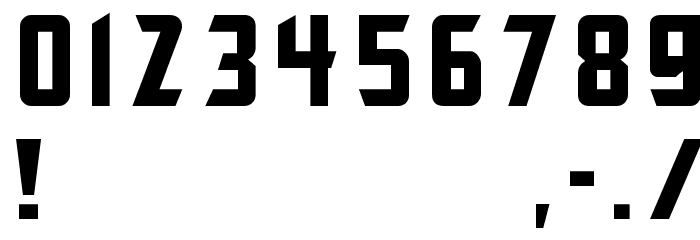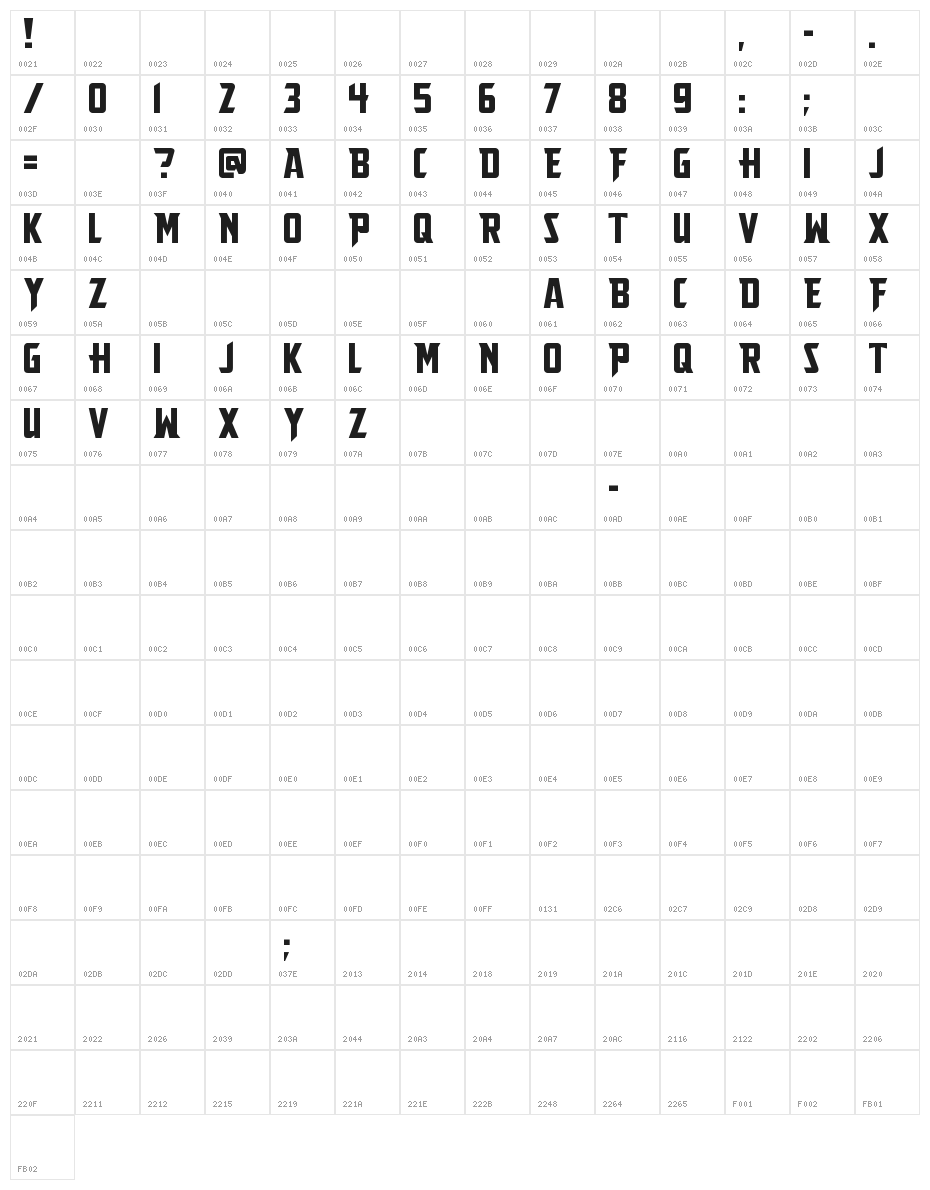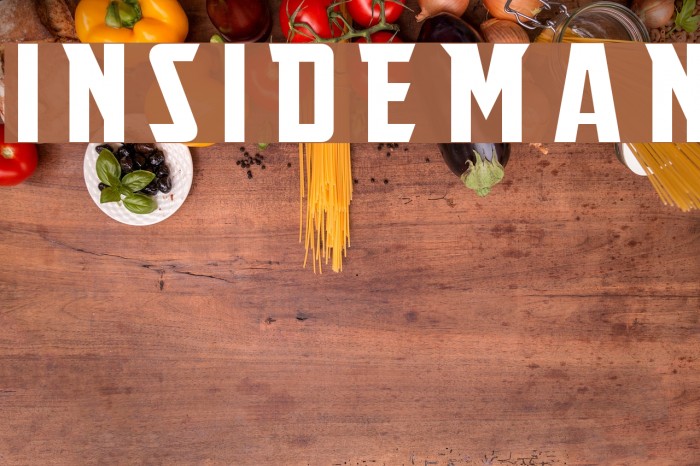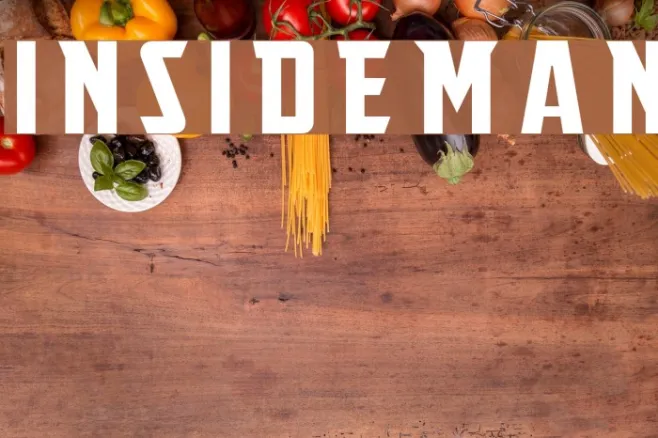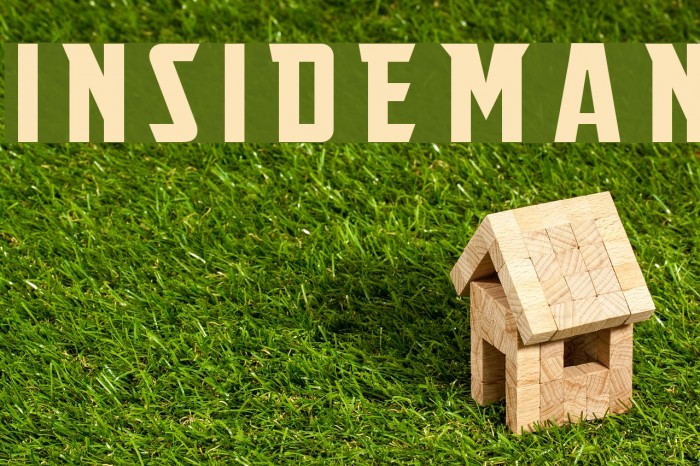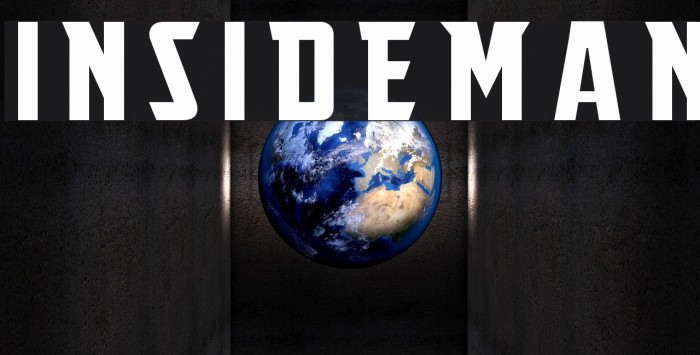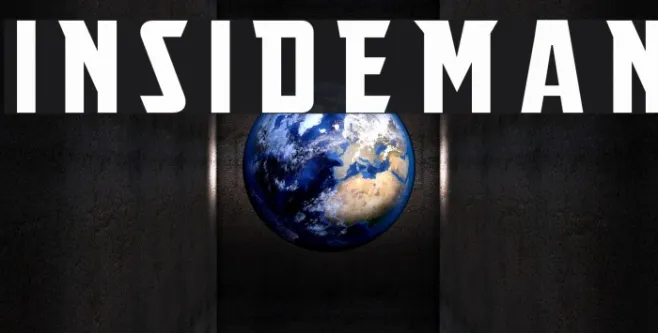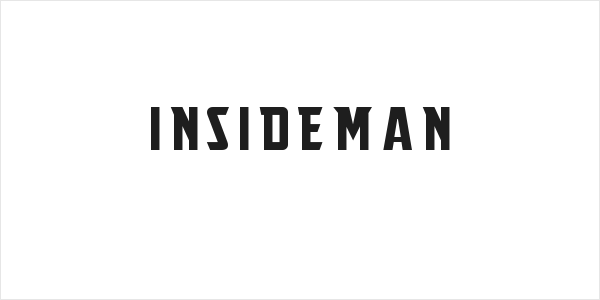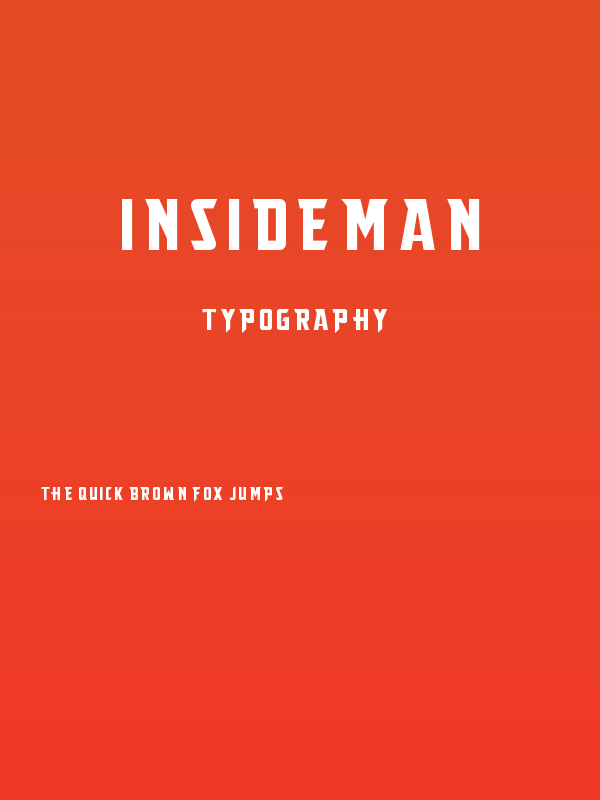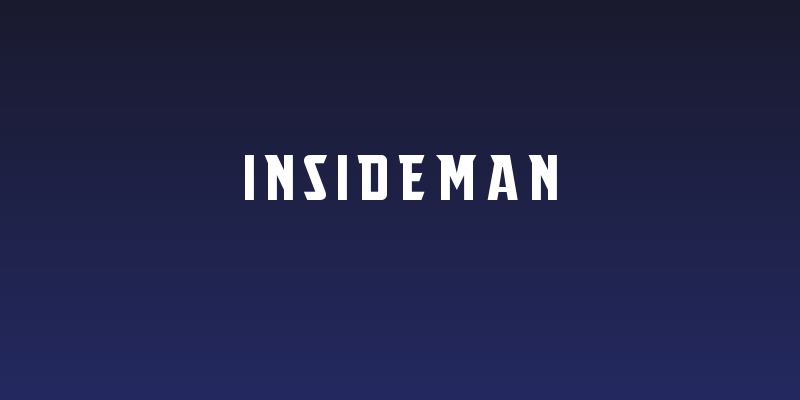
Insideman Font
Insideman Description
This font features a bold and angular design, characterized by sharp edges and geometric shapes. The uppercase and lowercase letters maintain a consistent style, with a strong emphasis on vertical and diagonal lines. The numbers and special characters follow the same angular theme, providing a cohesive look across all characters. This font's unique style makes it stand out, offering a modern and edgy appearance that is both eye-catching and distinctive.
| Proposed Projects | Ideal for branding, posters, and headlines that require a modern and edgy look. |